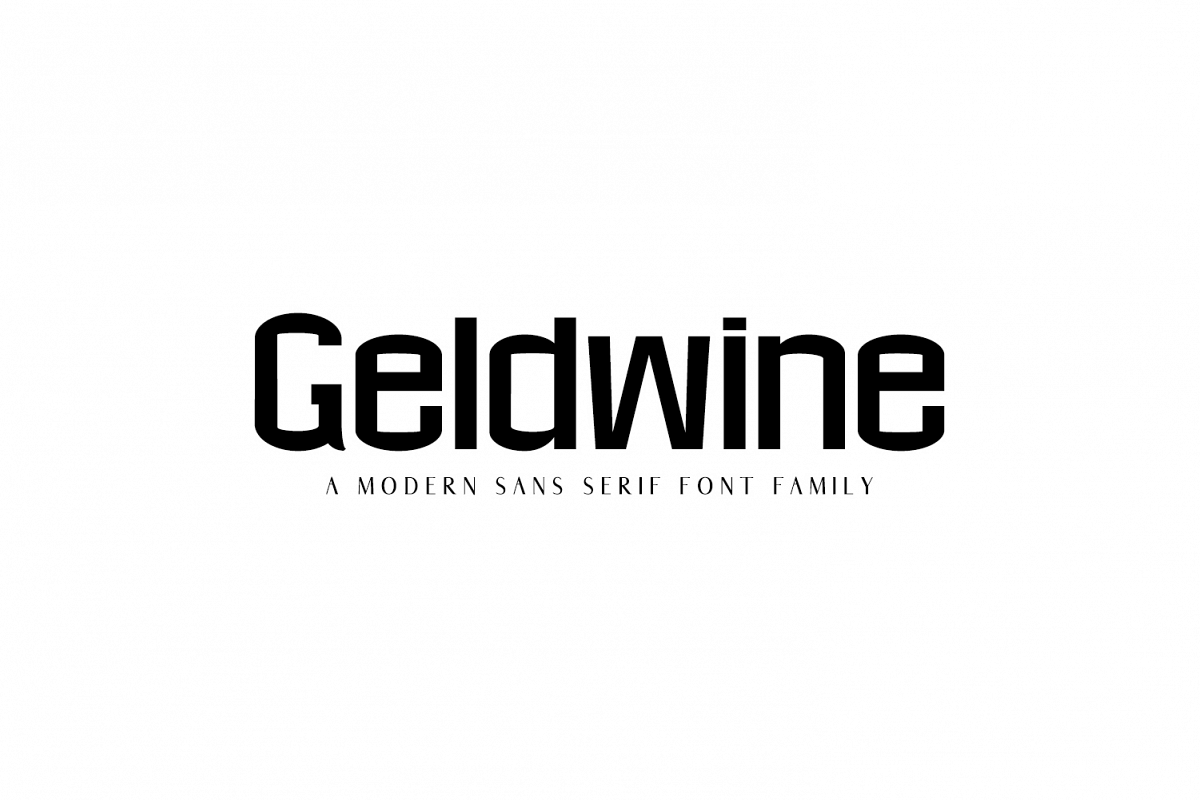
Geldwine Sans Serif Font Family
Boulia Sans Serif Font Family is a minimalist sans serif font family that looks stunning in every context. It comes with 6 weights. It's perfect for magazine, logos, invitations, texts, presentations, posters, notices, titles, name card, web layouts, headers, branding, weddings, social media, product design, stationery and advertising, and other any business related.
• Font Weight: Regular, Thin, Light, Round, Distorted, and Bold